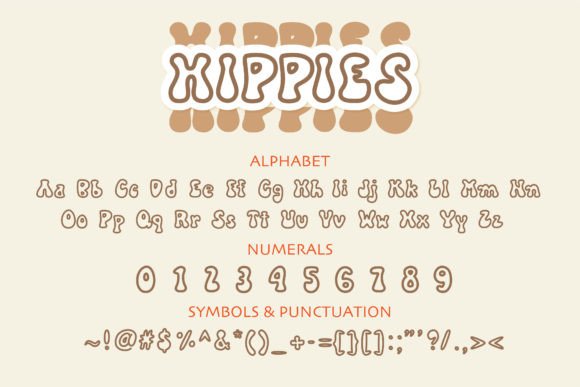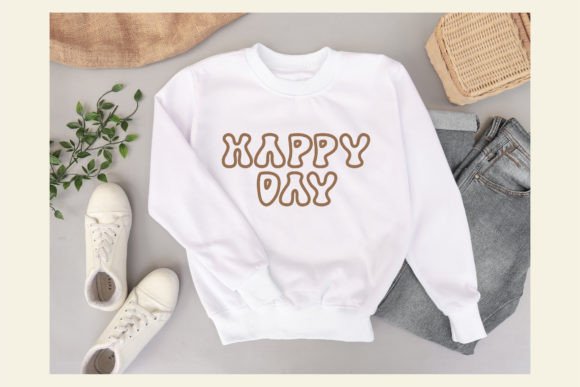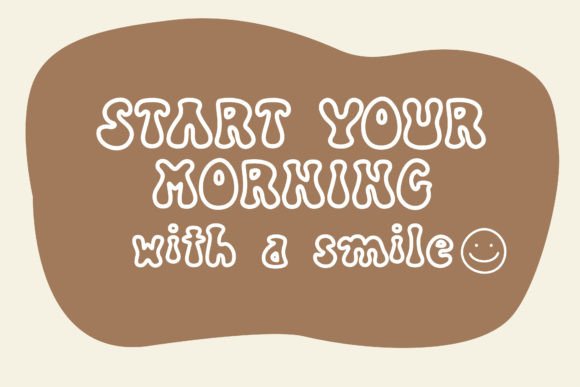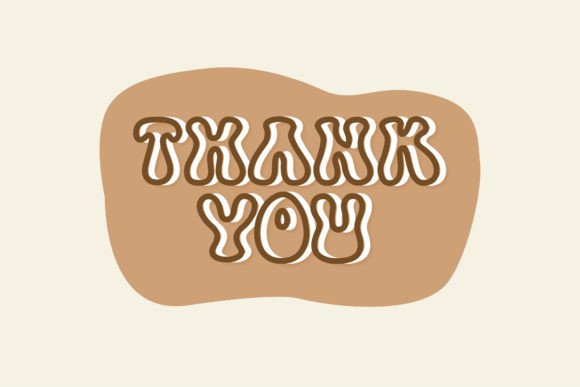
Hippies Font
About Hippies Font
Hippies font is a cute and flexible handwritten typeface designed to add a natural and unique touch to your creative work. When you download Hippies font, you gain access to a versatile font that fits a wide variety of designs. This font’s charming style makes it perfect for projects that require warmth and personality.
Downloading Hippiesfont will bring a handcrafted vibe to your designs. It offers a perfect balance of playfulness and elegance, allowing you to enhance logos, greeting cards, social media posts, and more. Its flexibility makes it a valuable addition to any font library.
Versatile and Natural Style
Hippiesfont shines with its natural flow and unique letterforms. Its cute design complements various creative projects, from casual branding to playful invitations. Download this font to explore its endless variations and discover how it can breathe life into your work.
Perfect for Many Design Uses
You can use Hippiesfont in everything from t-shirts and posters to kids’ books and stickers. Download Hippiesfont to add a friendly, approachable look that stands out. Its adaptable nature allows it to suit both fun and professional design needs.